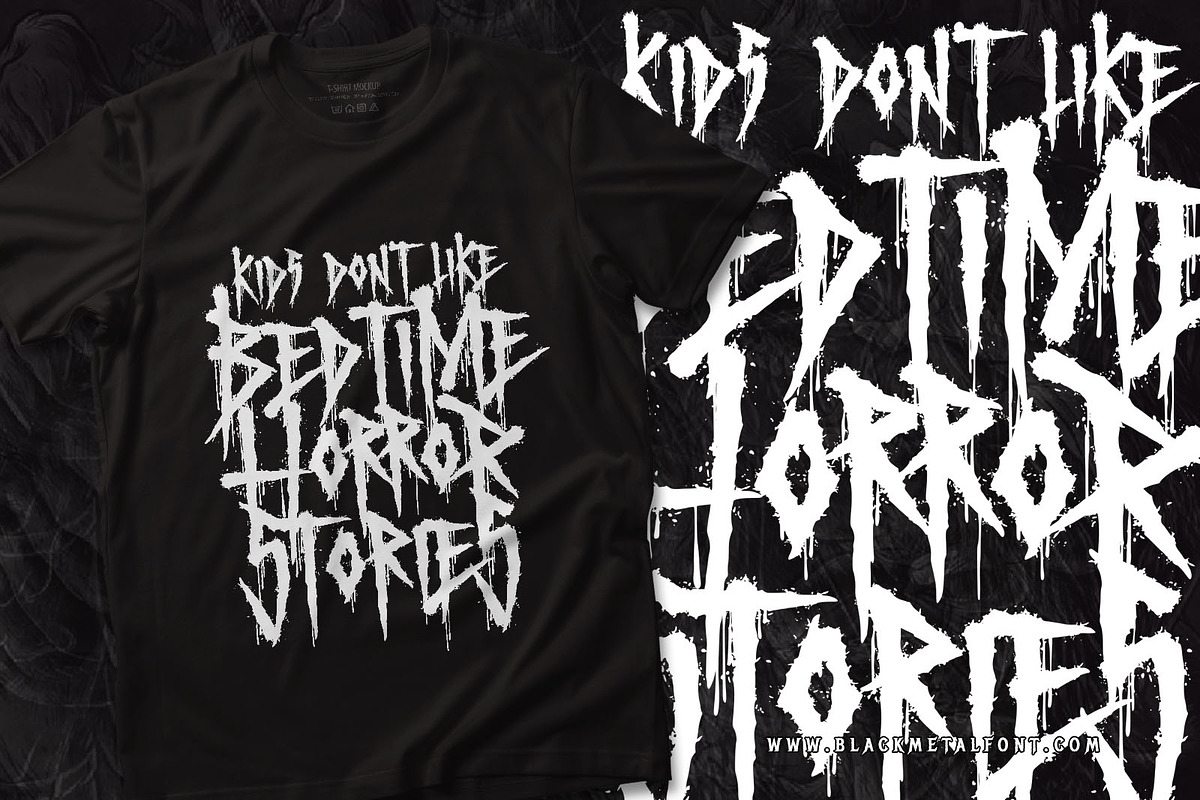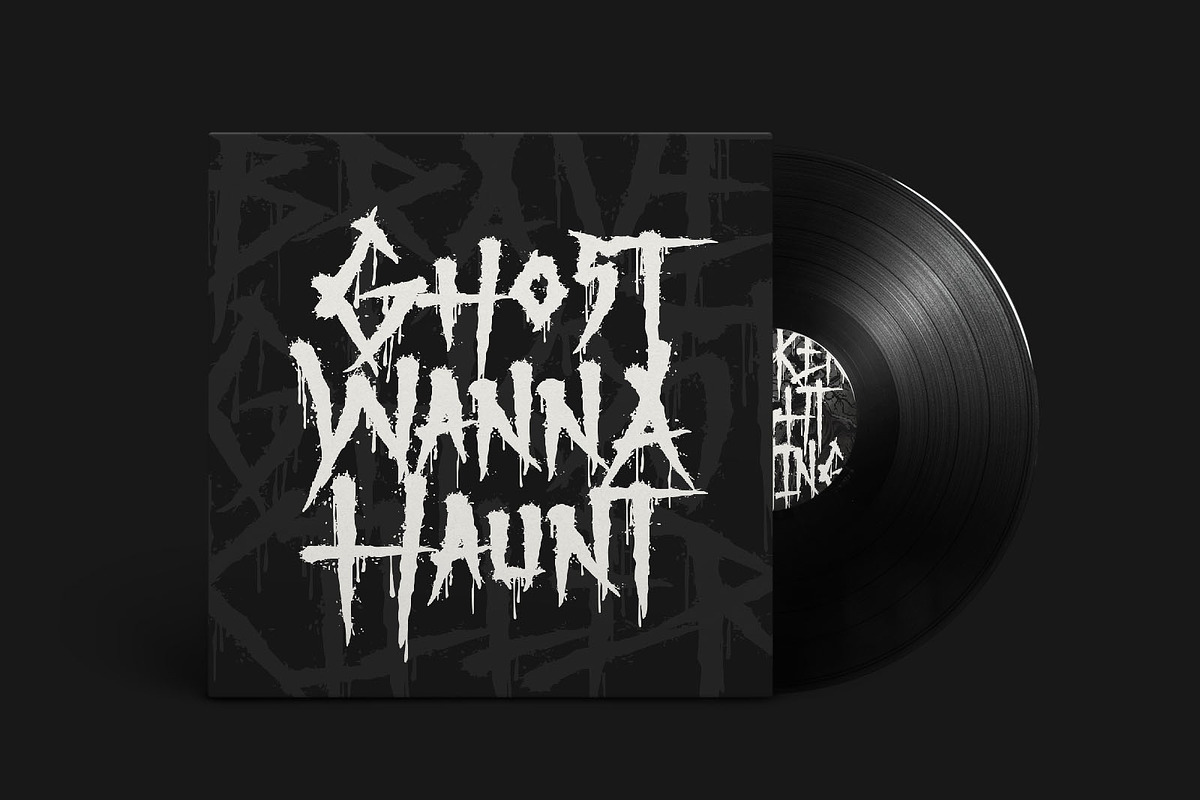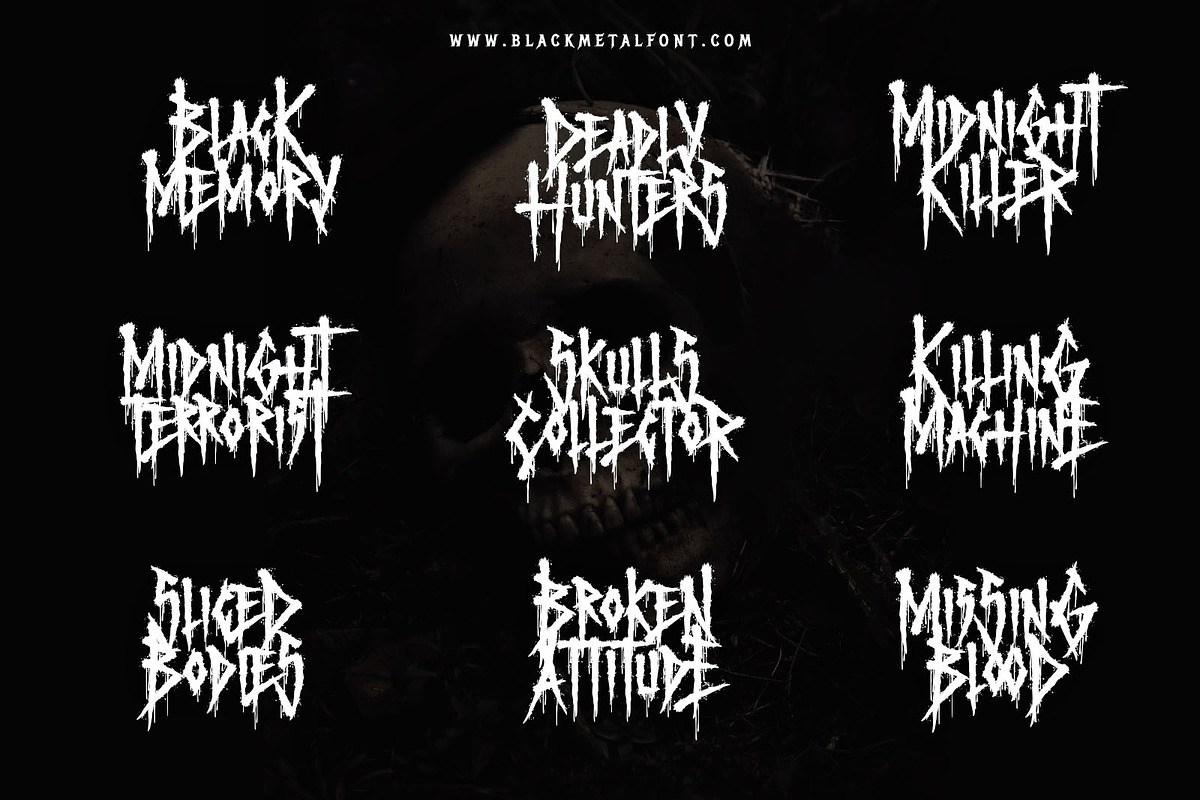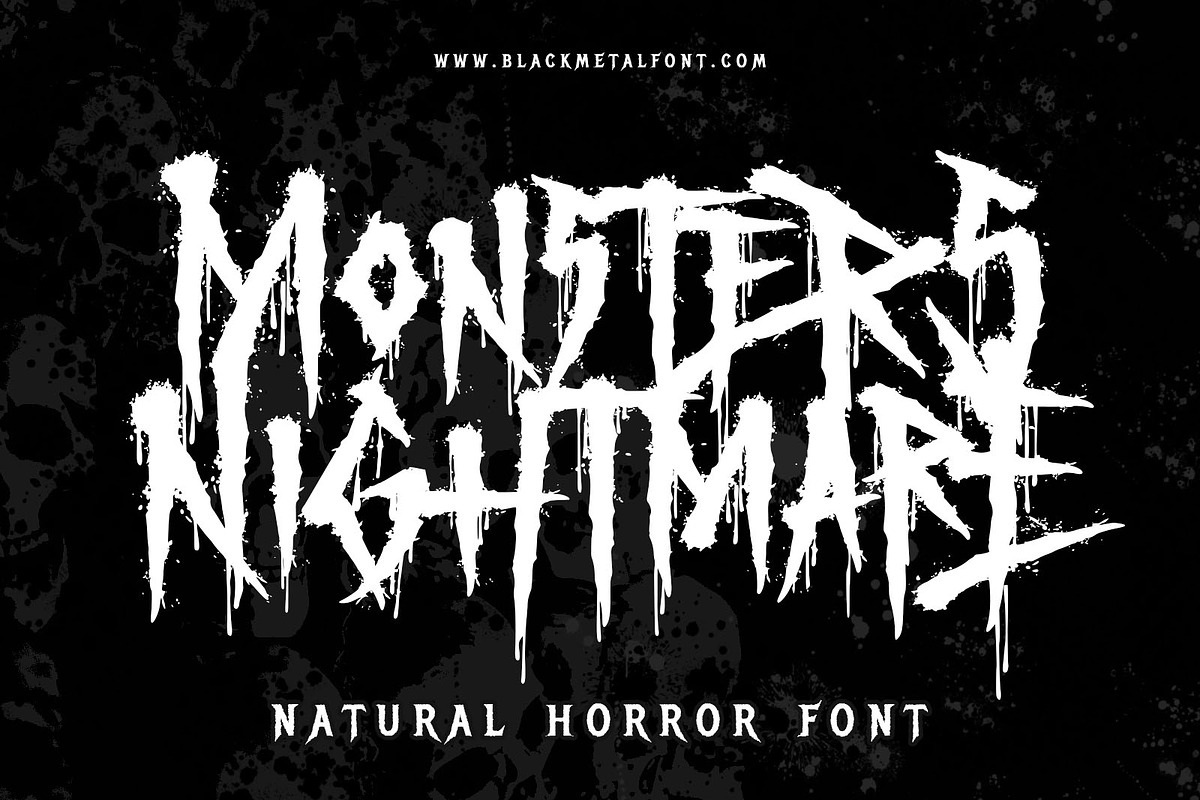
Monster Nightmare is awesome Horror font. Comes with Uppercase and lowercase characters. This font is great for any gore/metal/brutal design purposes. Monster Nightmare is awesome for your logo, your band, for merchandise, for clothing, and movie title/poster